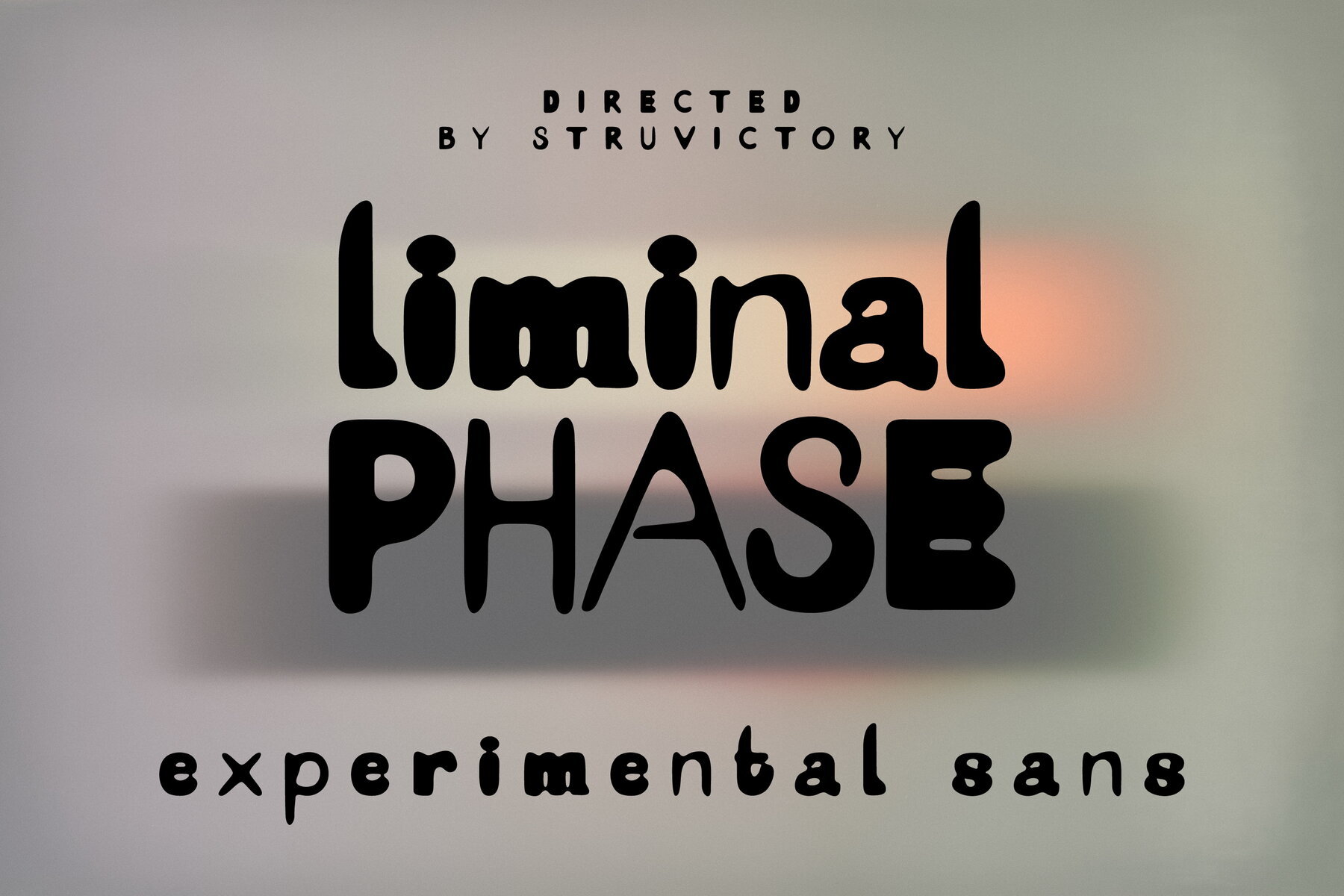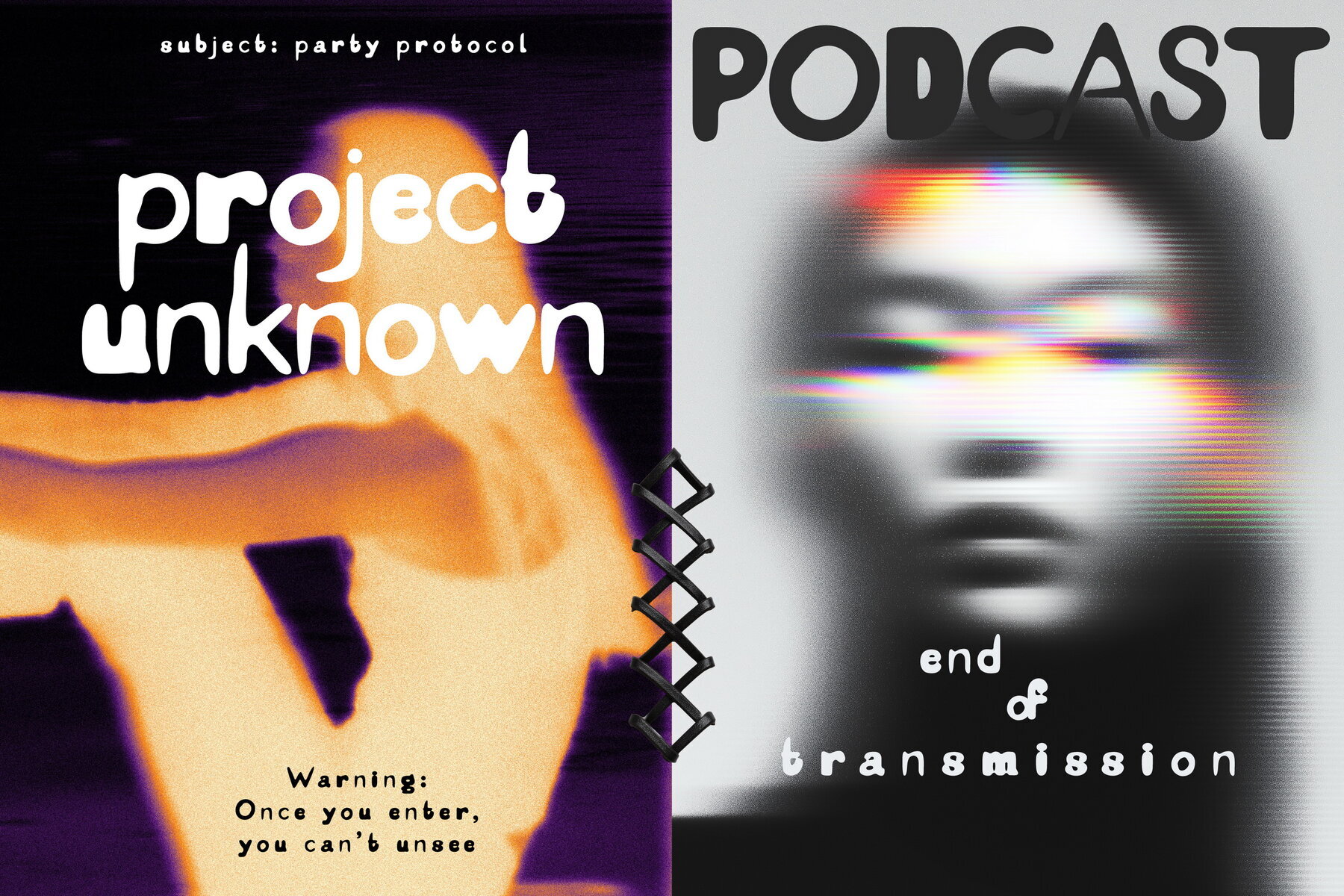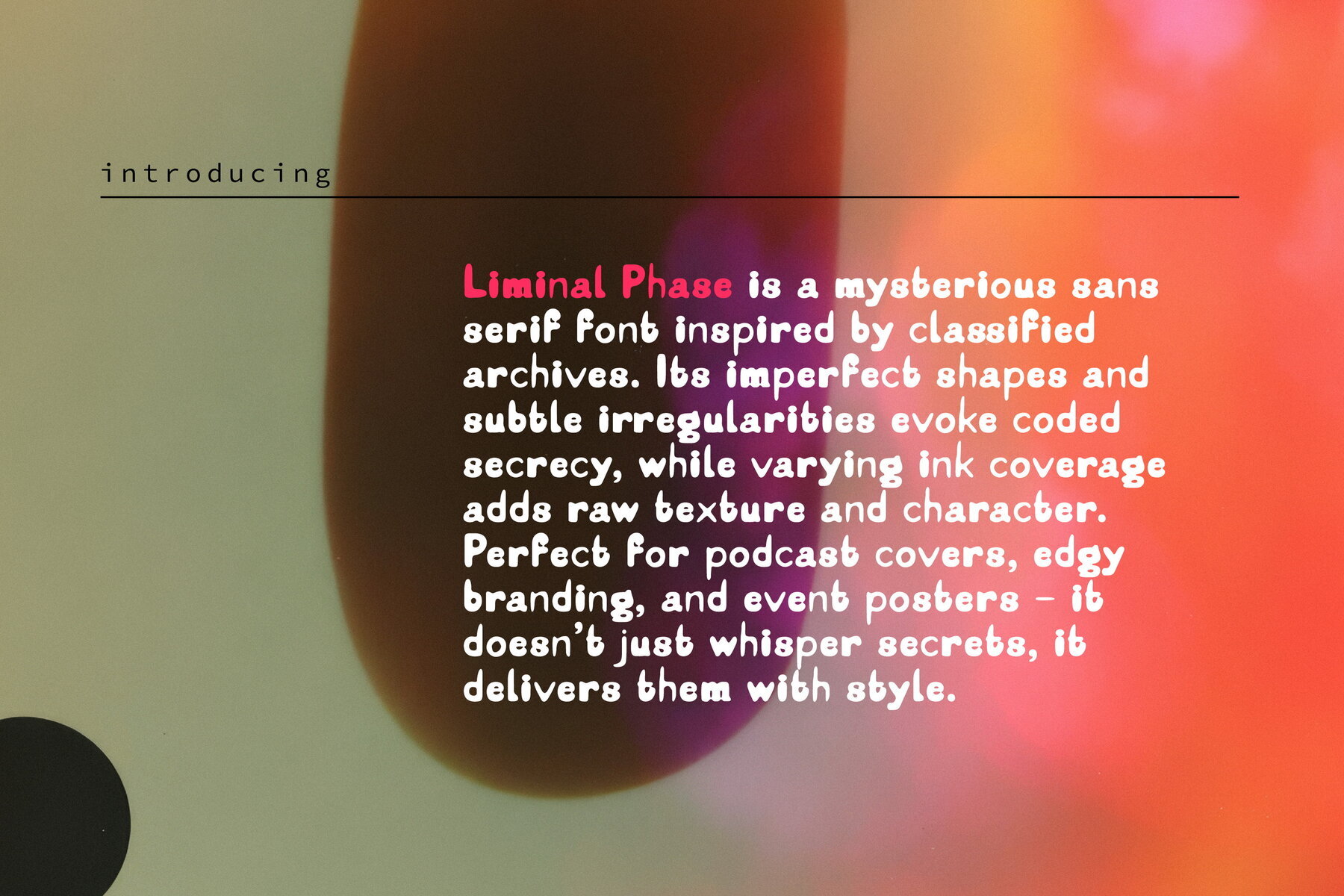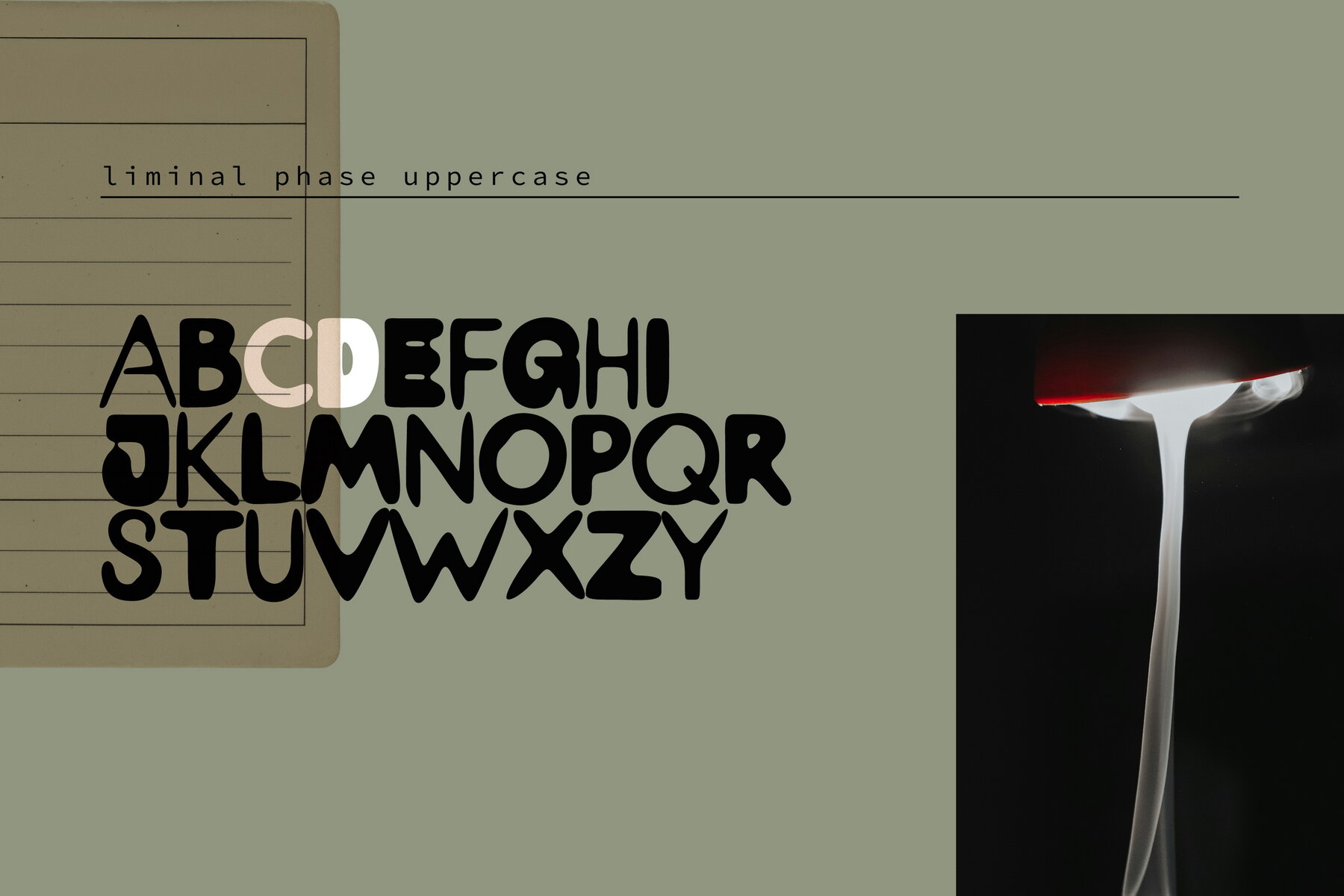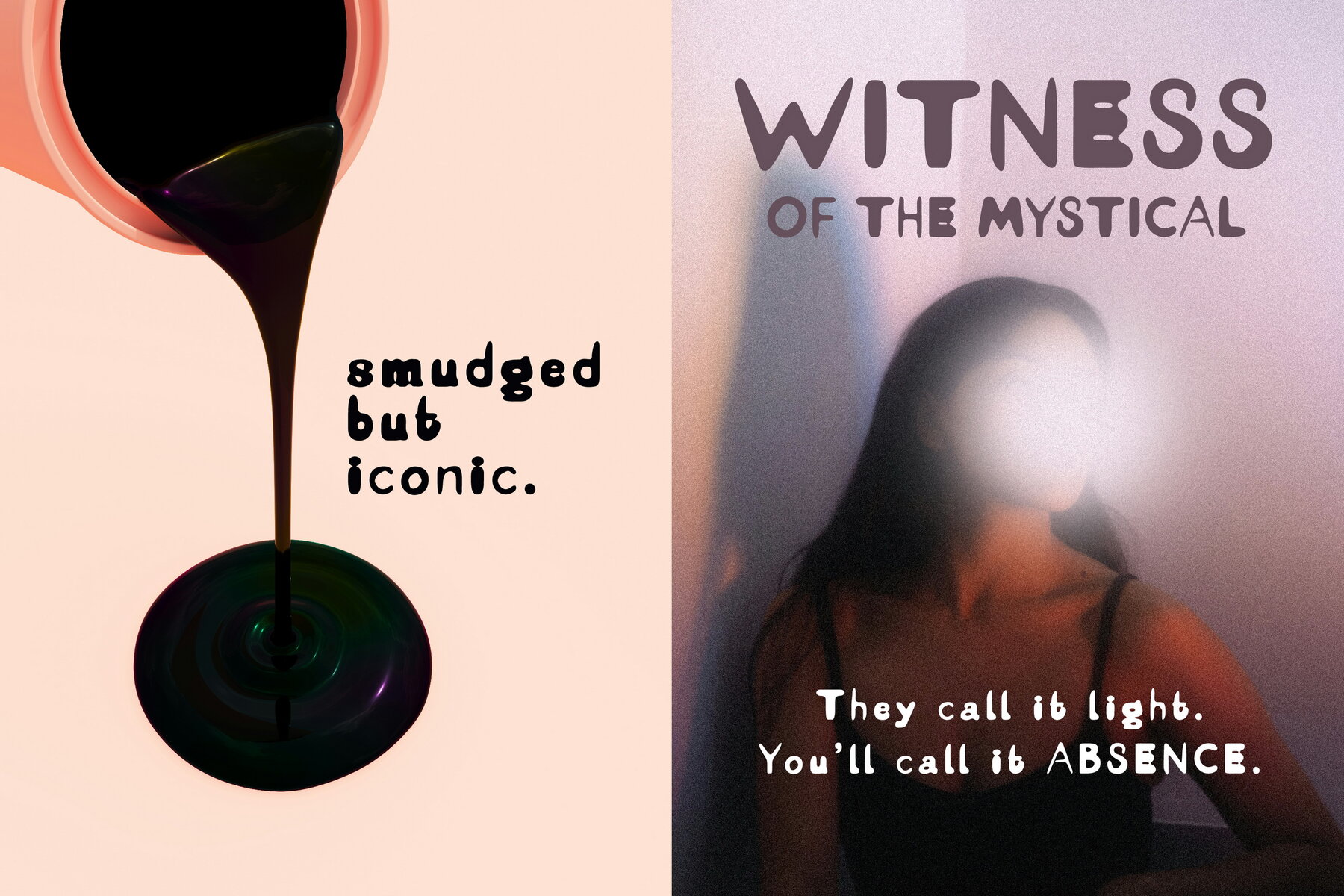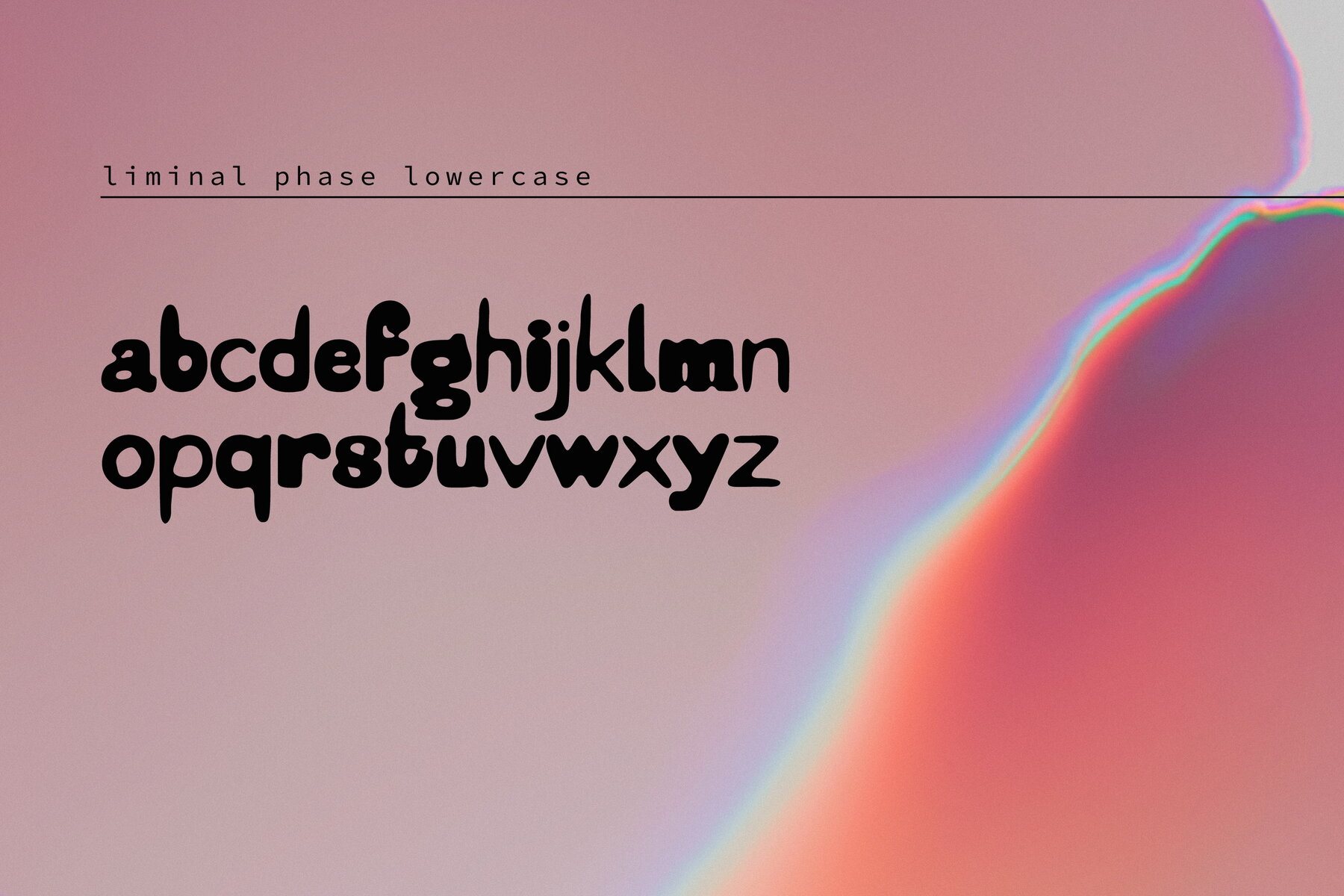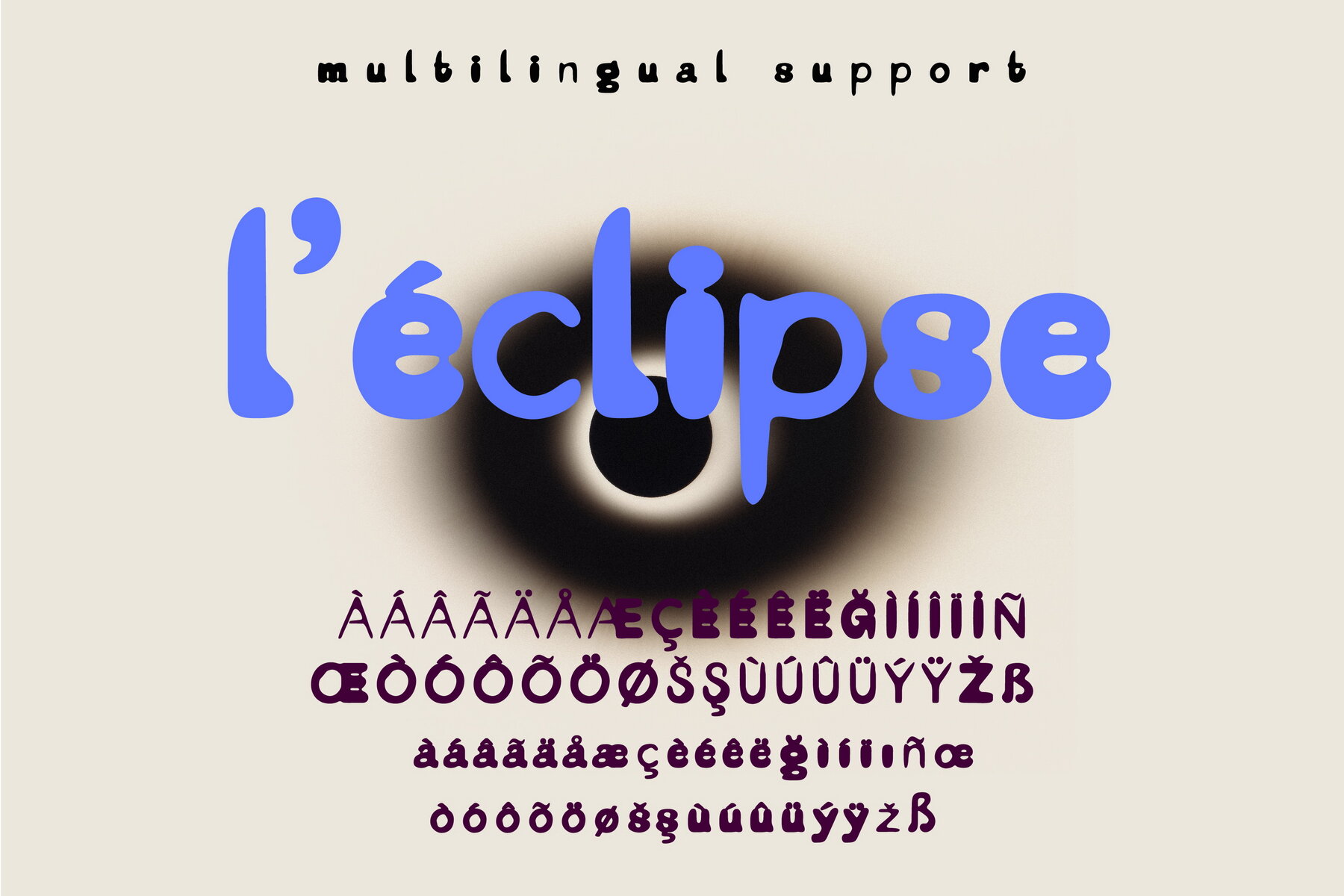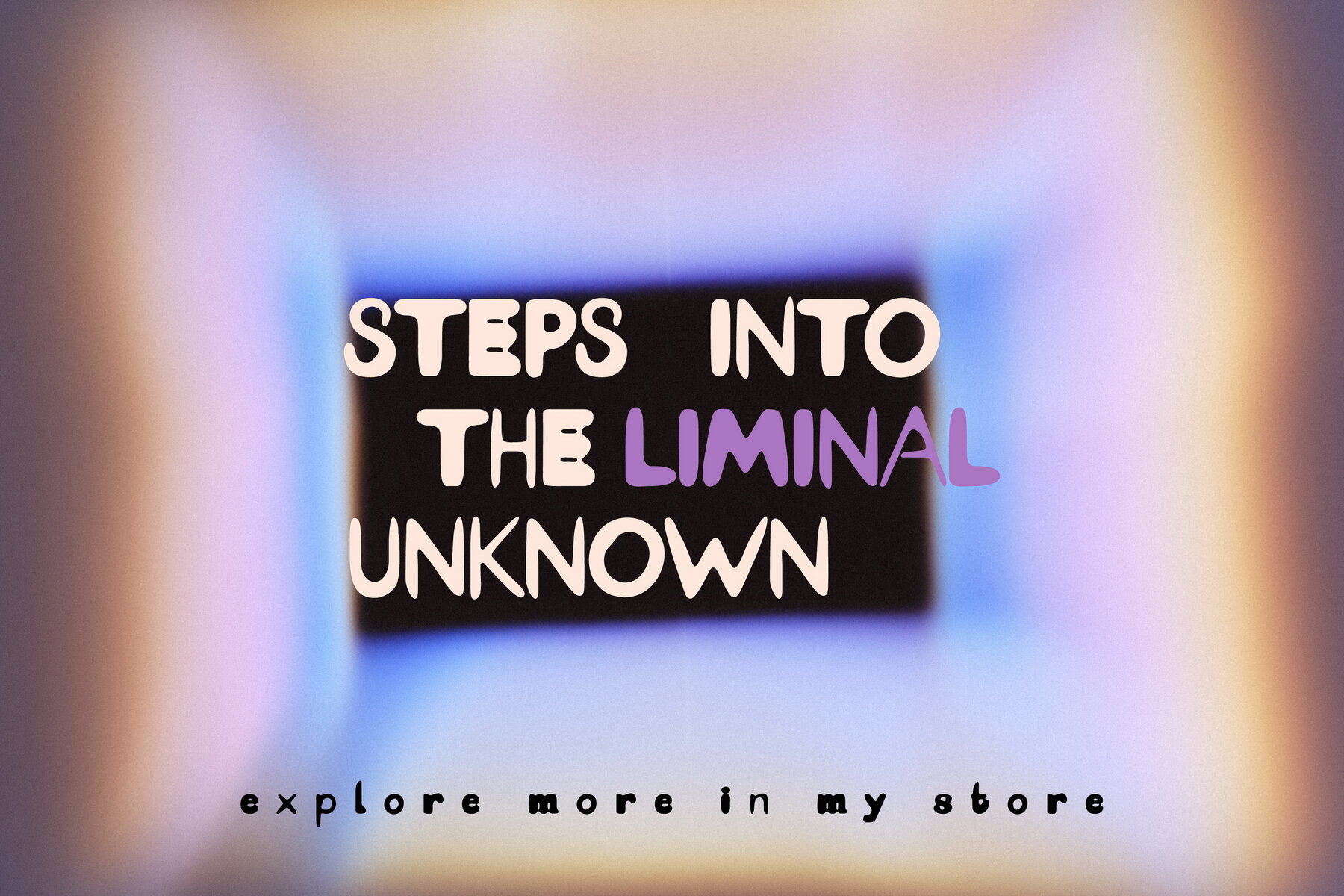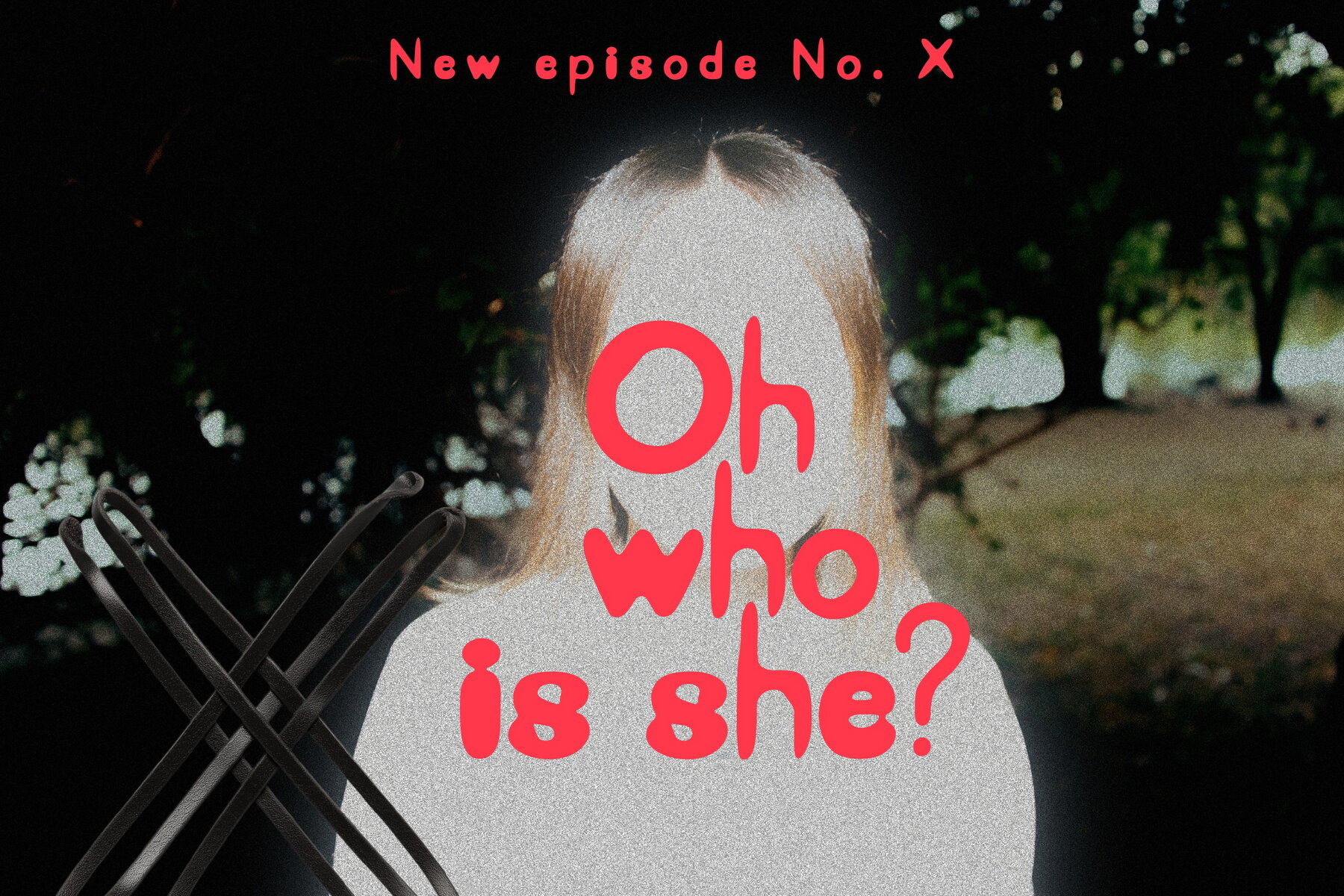
Liminal Phase Font
Liminal Phase Sans
Liminal Phase is an innovative sans serif font where each letter exudes a unique, tactile quality. With its imperfect shapes and subtle irregularities, this typeface whispers of clandestine messages through its coded secrecy. The varying ink coverage further enhances its raw texture and allure, making it ideal for designs that demand attention.Liminal Phase Typeface